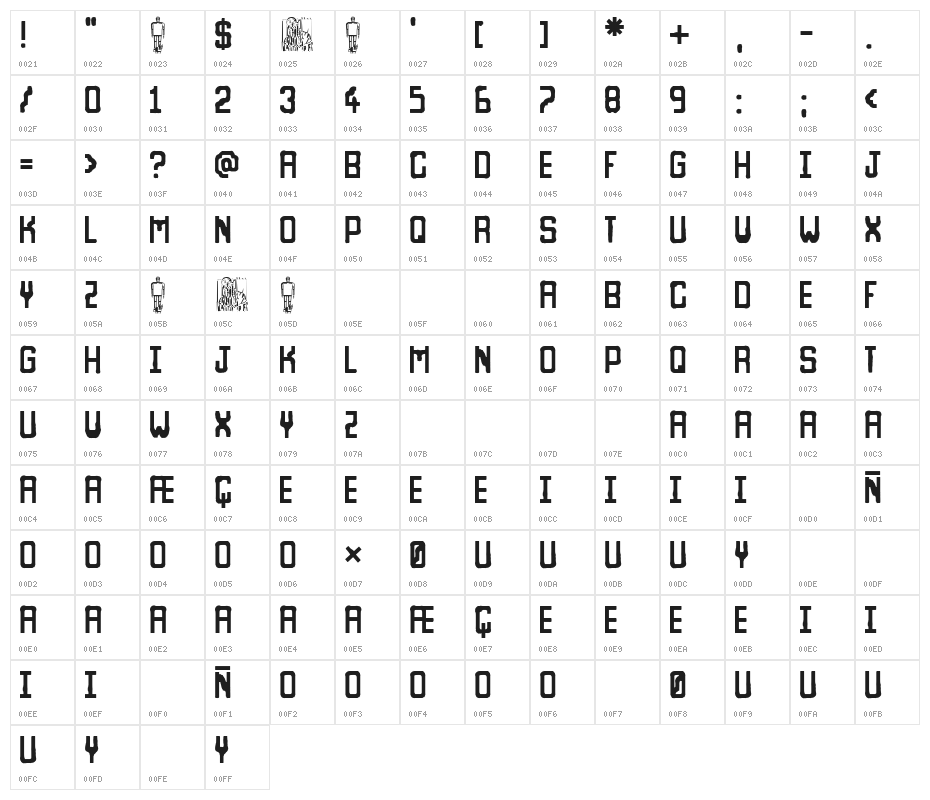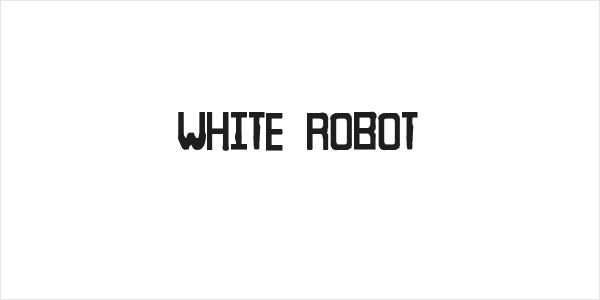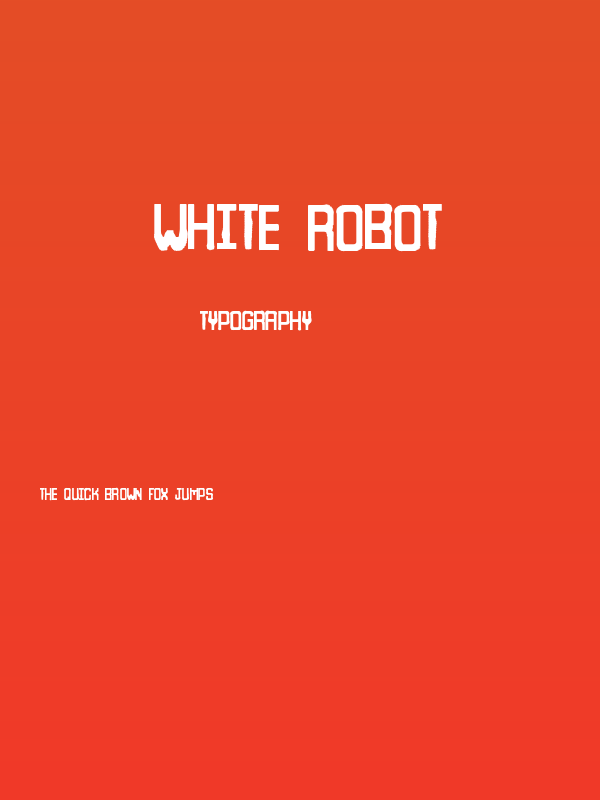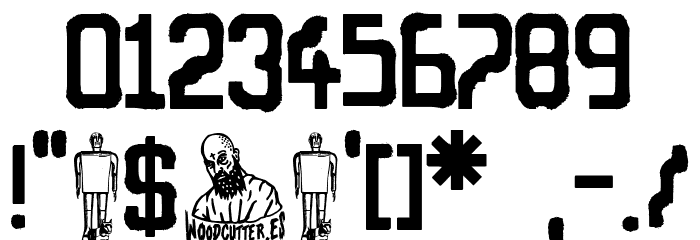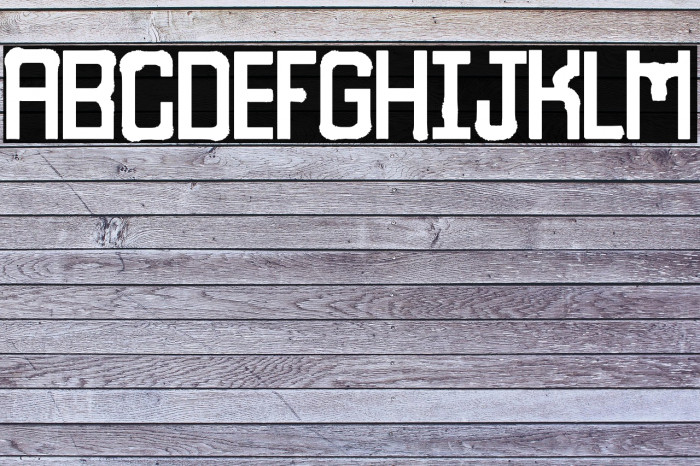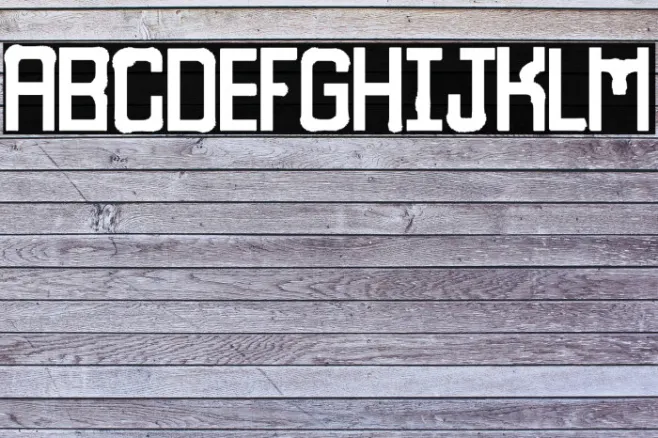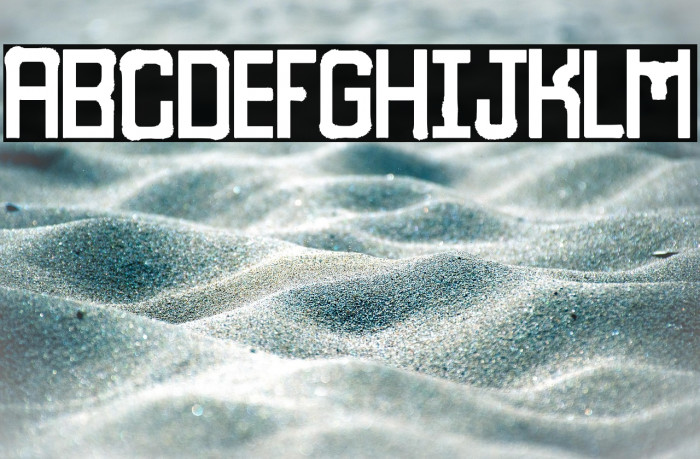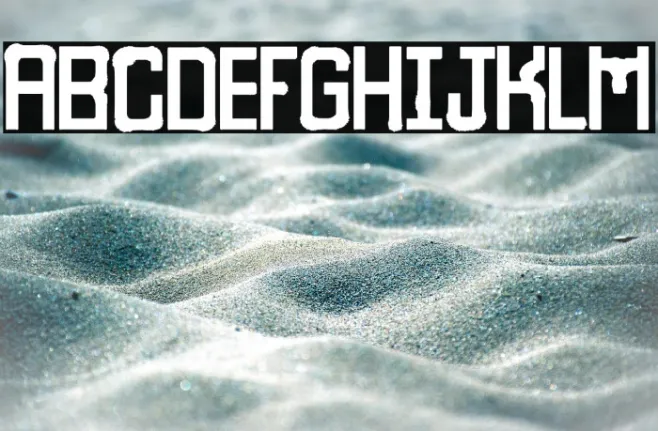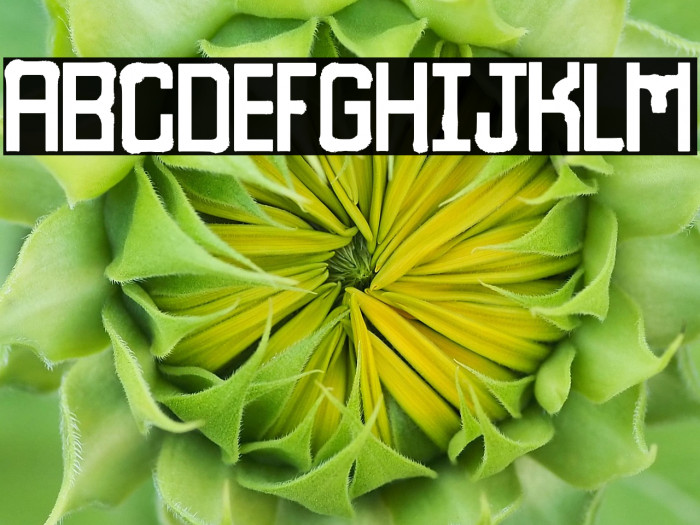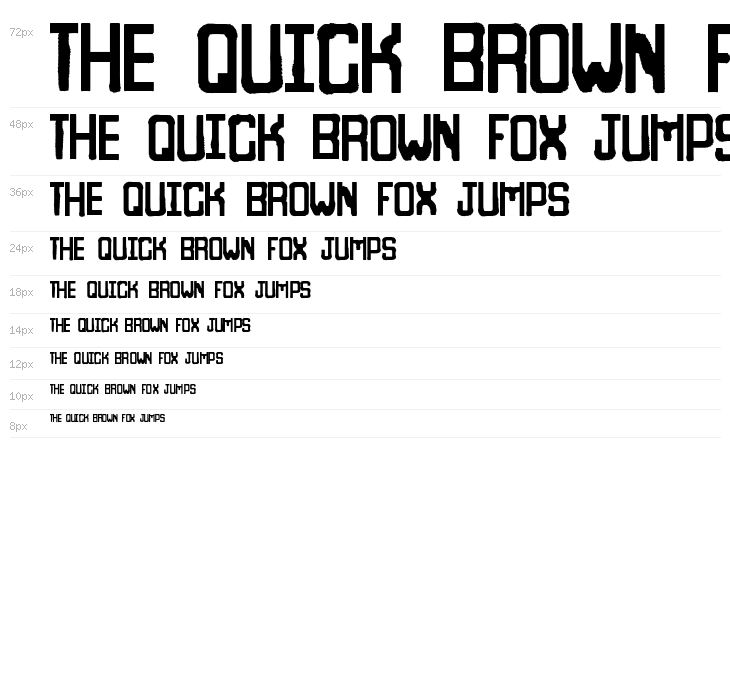
White Robot Font
White Robot Description
This font features a bold, industrial design with a mechanical and futuristic aesthetic. The characters are constructed with thick, uniform strokes that give a sense of strength and durability. The angular and geometric shapes of the letters create a robotic feel, making it suitable for themes related to technology and machinery. The font maintains a consistent width across all characters, providing a cohesive and structured appearance. The numbers and special characters follow the same design principles, ensuring uniformity throughout the typeface.
| Proposed Projects | Ideal for technology-themed posters, video game titles, industrial branding, and sci-fi book covers. |